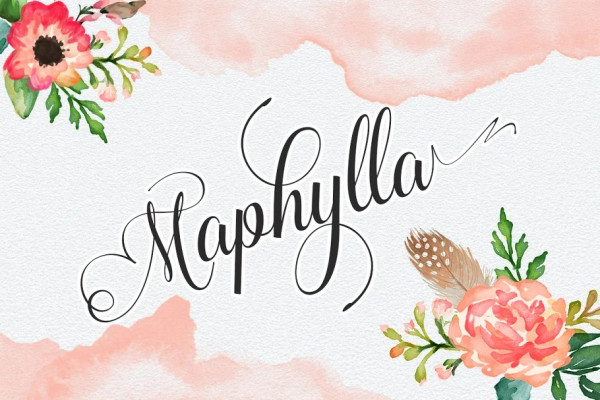
Maphylla Font
Maphylla Font is a font scrip, so, font script that is beautiful and unique, it is a model of modern calligraphy typefaces, in combination with a calligraphy writing style. total 378 glyph.